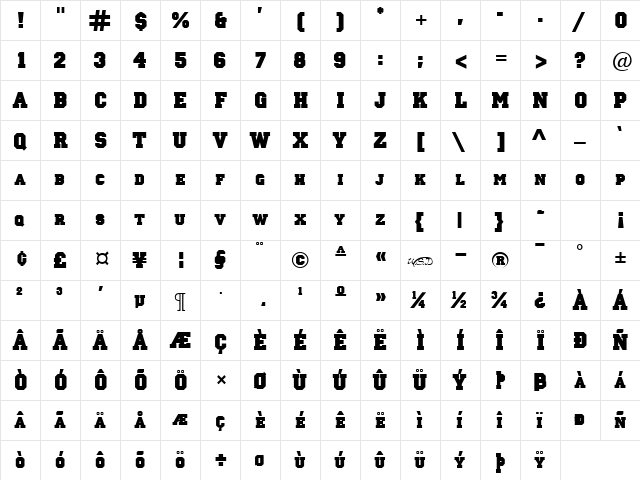
Letterman-Solid Regular
Design Context for Letterman-Solid Typeface
Letterman-Solid takes a measured approach to typography — its balanced proportions and neutral character make it a reliable workhorse for both digital and print work.